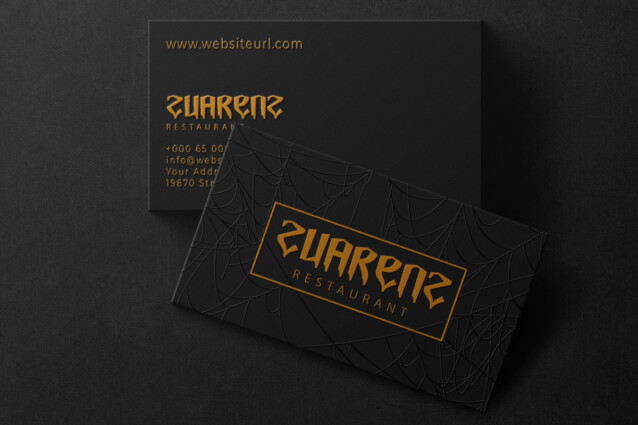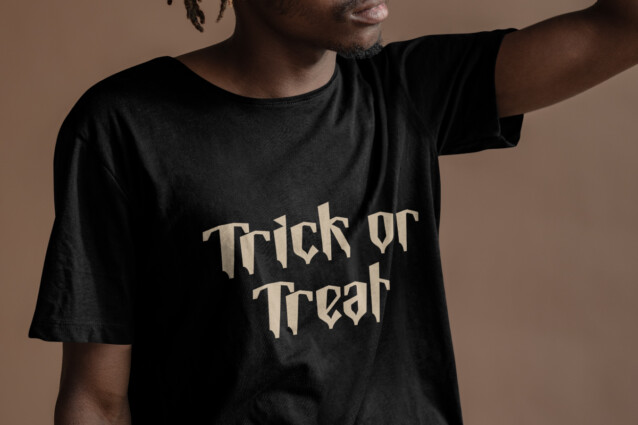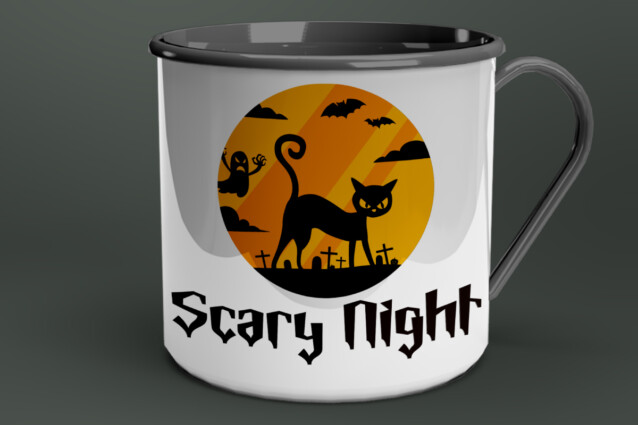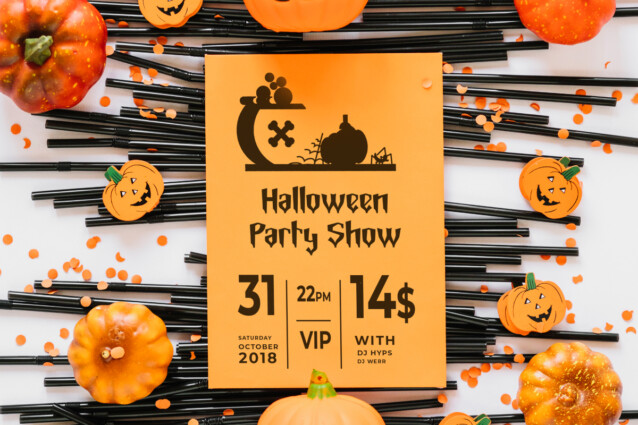
Horror Comics Font
Horror Comics Font is a unique display font with mysterious horror and vampire genre. It has a unique feel which makes it suitable for any industry, such as accessories, advertisement, amusement park, artist, author, café, comics, clothing brand, event or festival just like Halloween, fashion designer, film, furniture, games, handicrafts, merchandise, movie, musician, printing, publishing, restaurant, writer, etc.